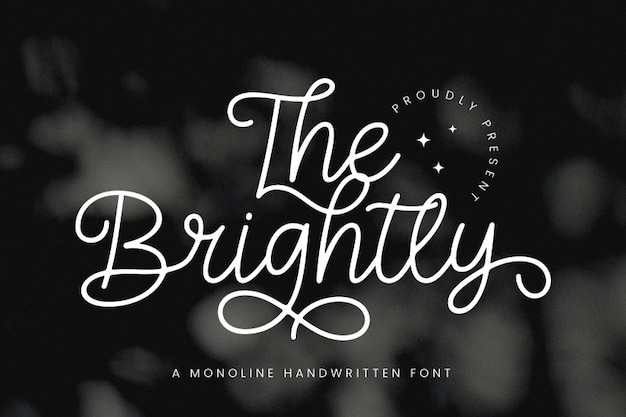
The Brightly Font
"The Brightly" is a charming single-line font that captures the essence of casual handwriting with a modern twist. Its simple yet stylish script features fluid curves and a friendly appearance, making it perfect for invitations, personal notes, and branding. This versatile font adds a touch of warmth and approachability to any design, making every word feel inviting and special.
The Brightly Regular (400)